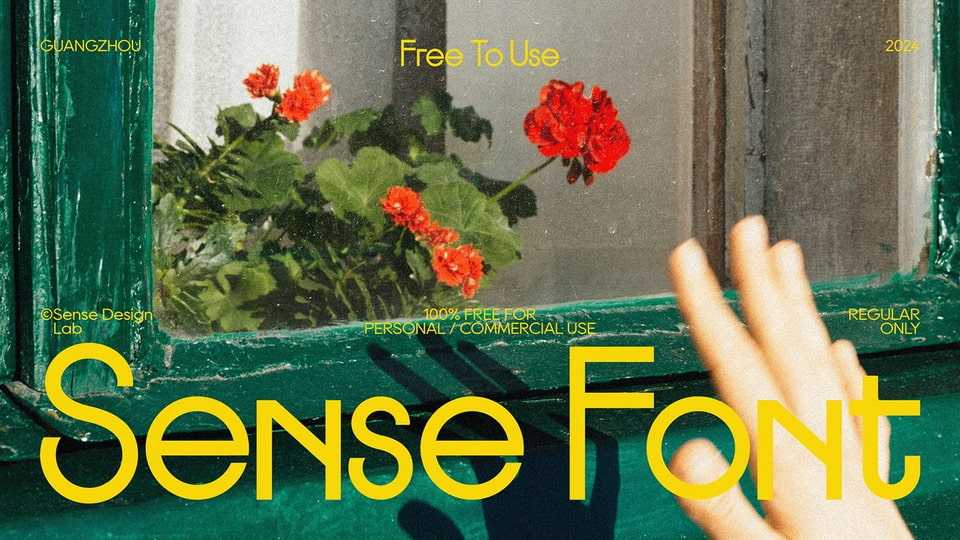
Download Sense font, a contemporary geometric sans serif typeface that embodies sleekness, precision, and modernity. Sense font is designed with clean lines, sharp angles, and balanced proportions, creating a typographic experience that feels both refined and futuristic.